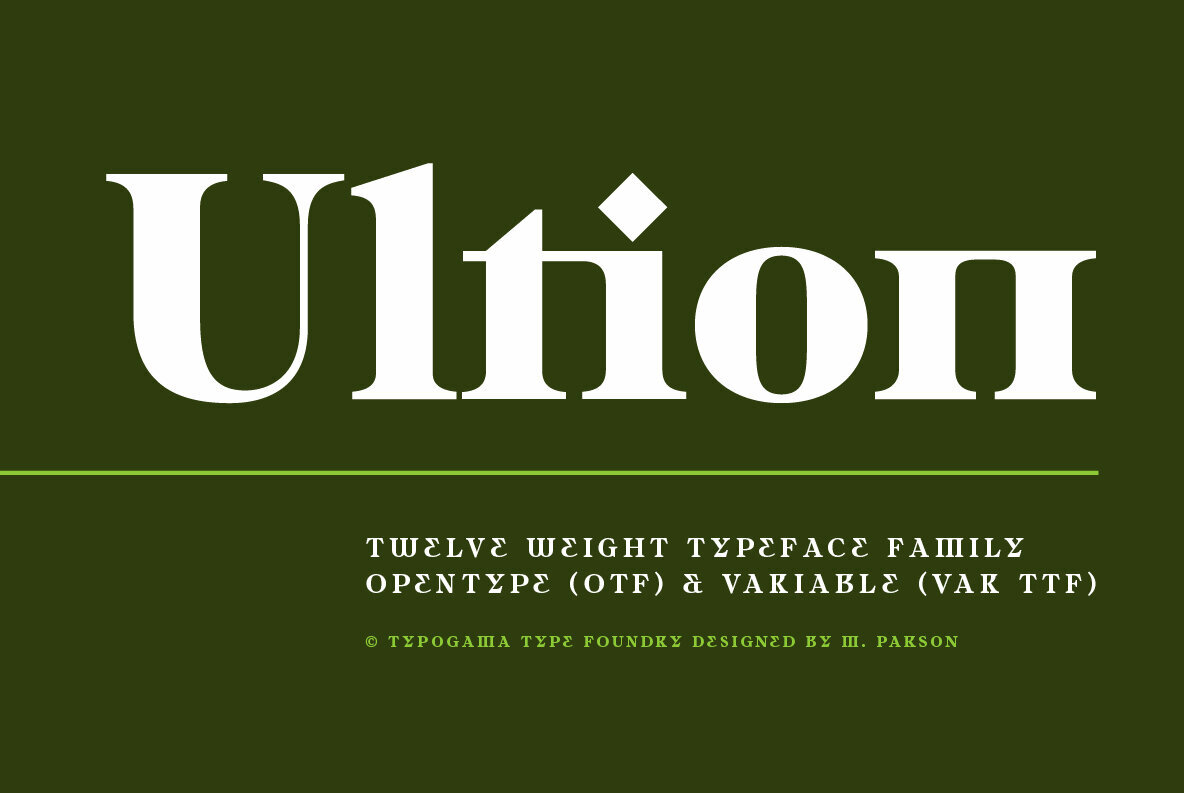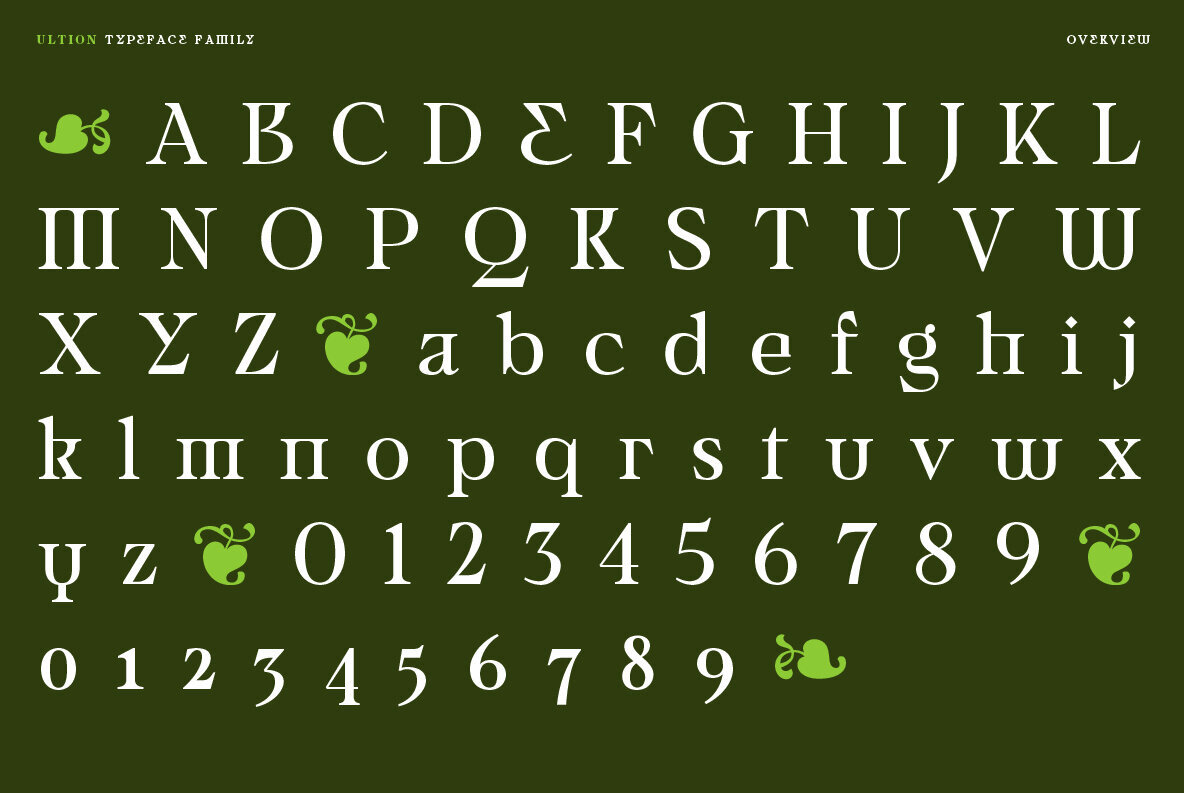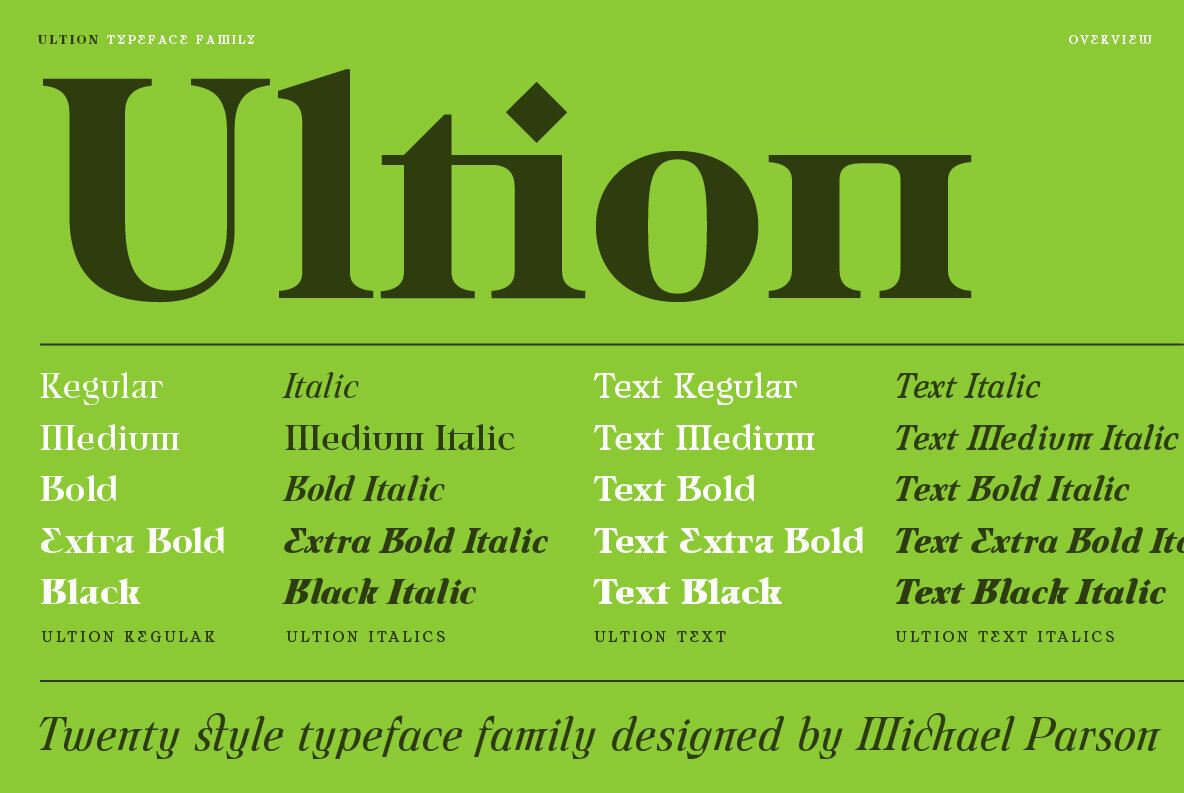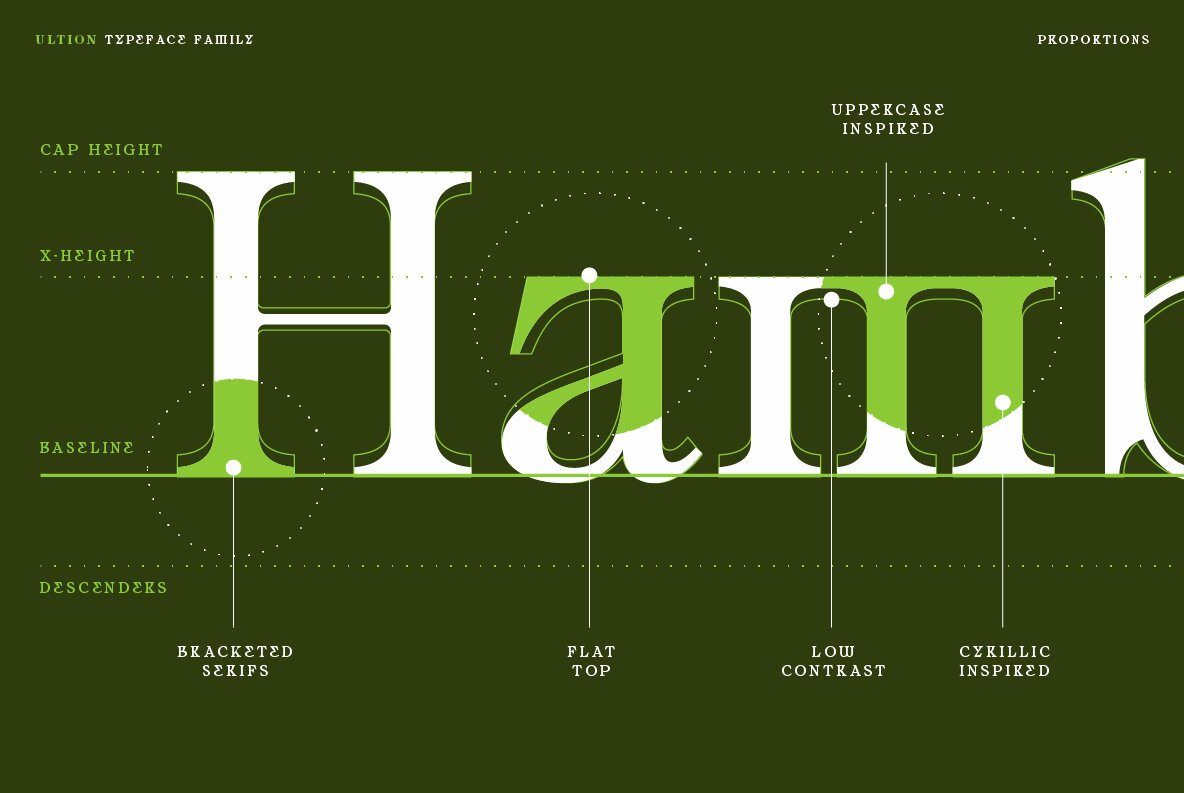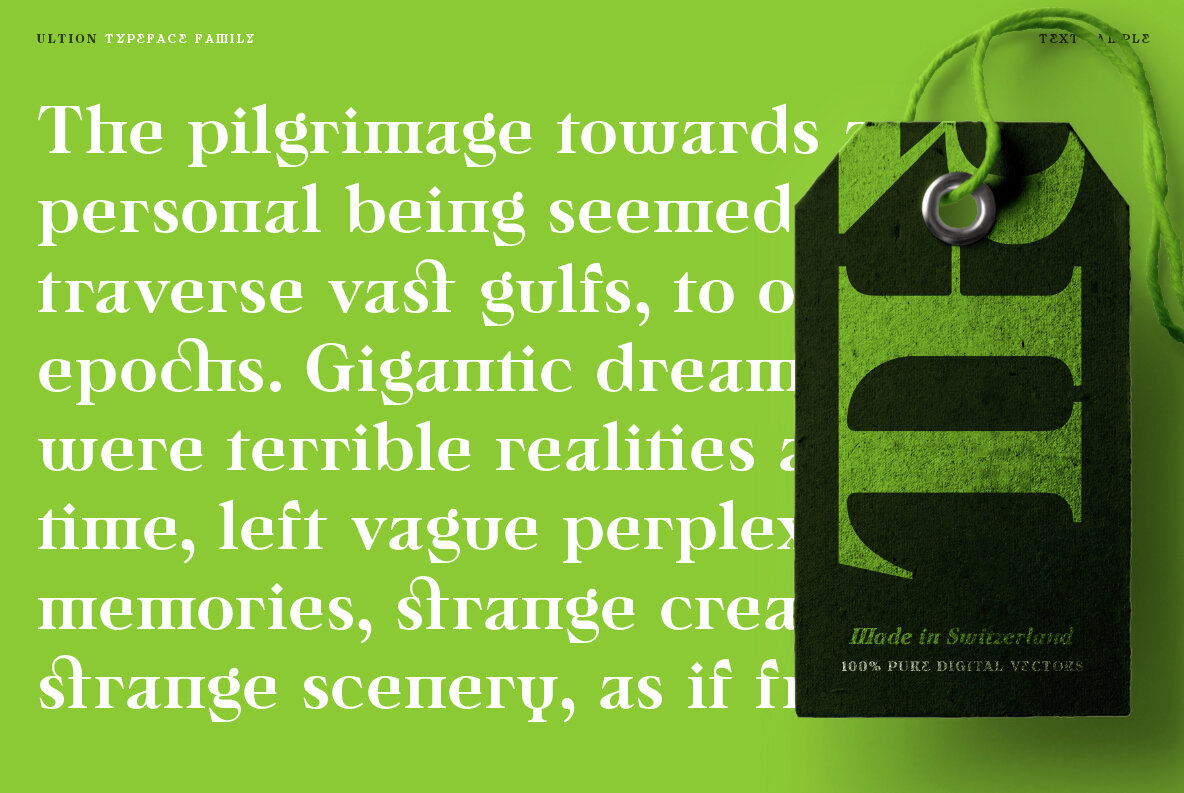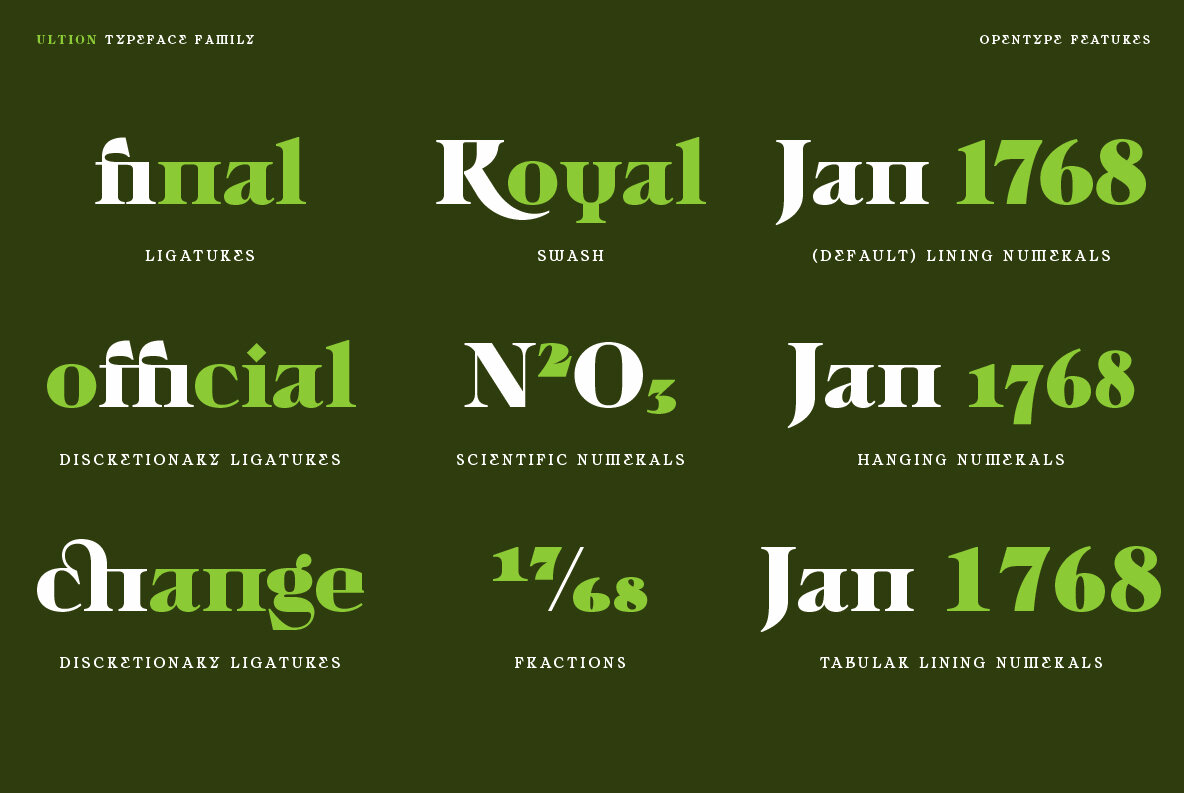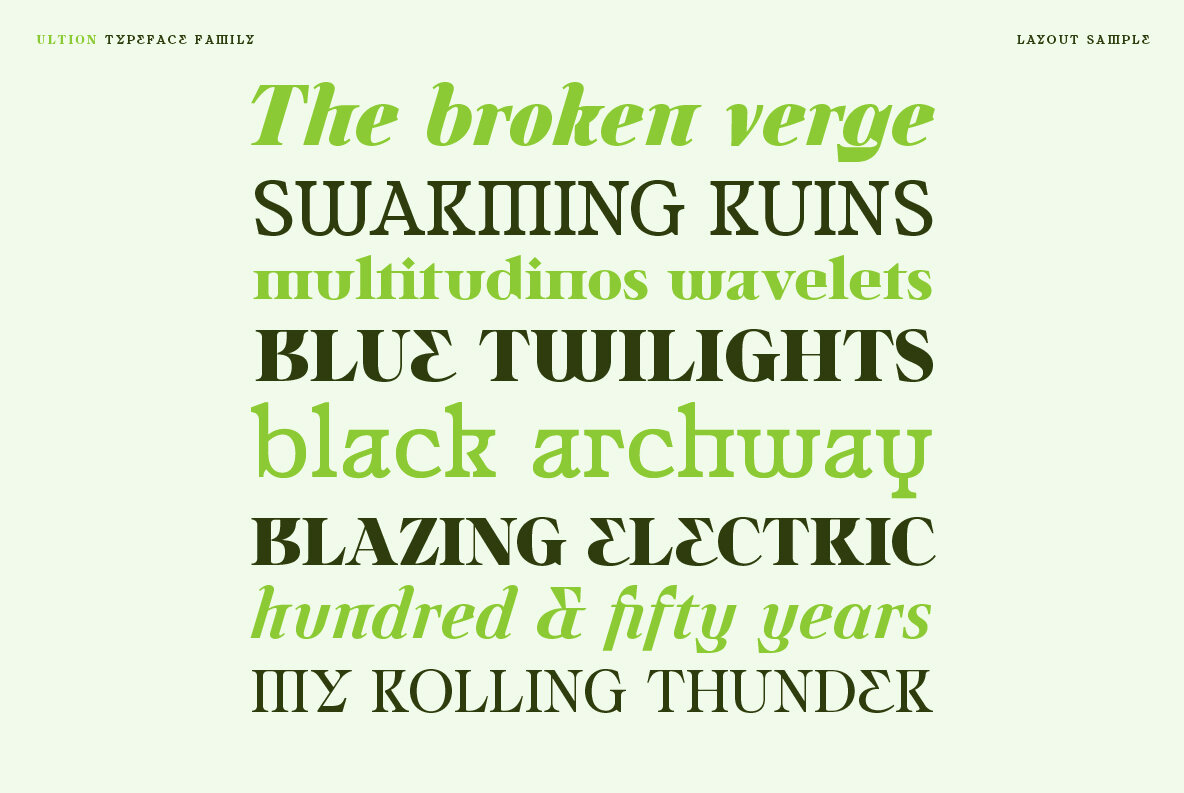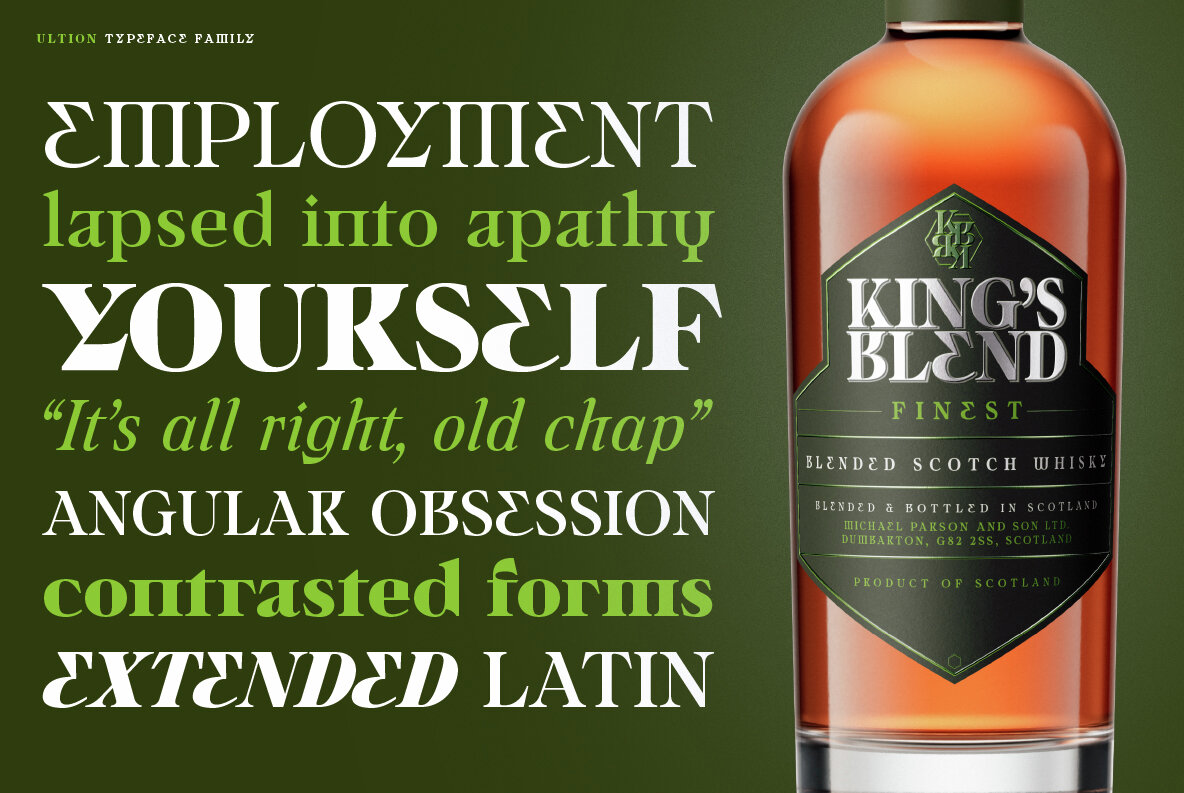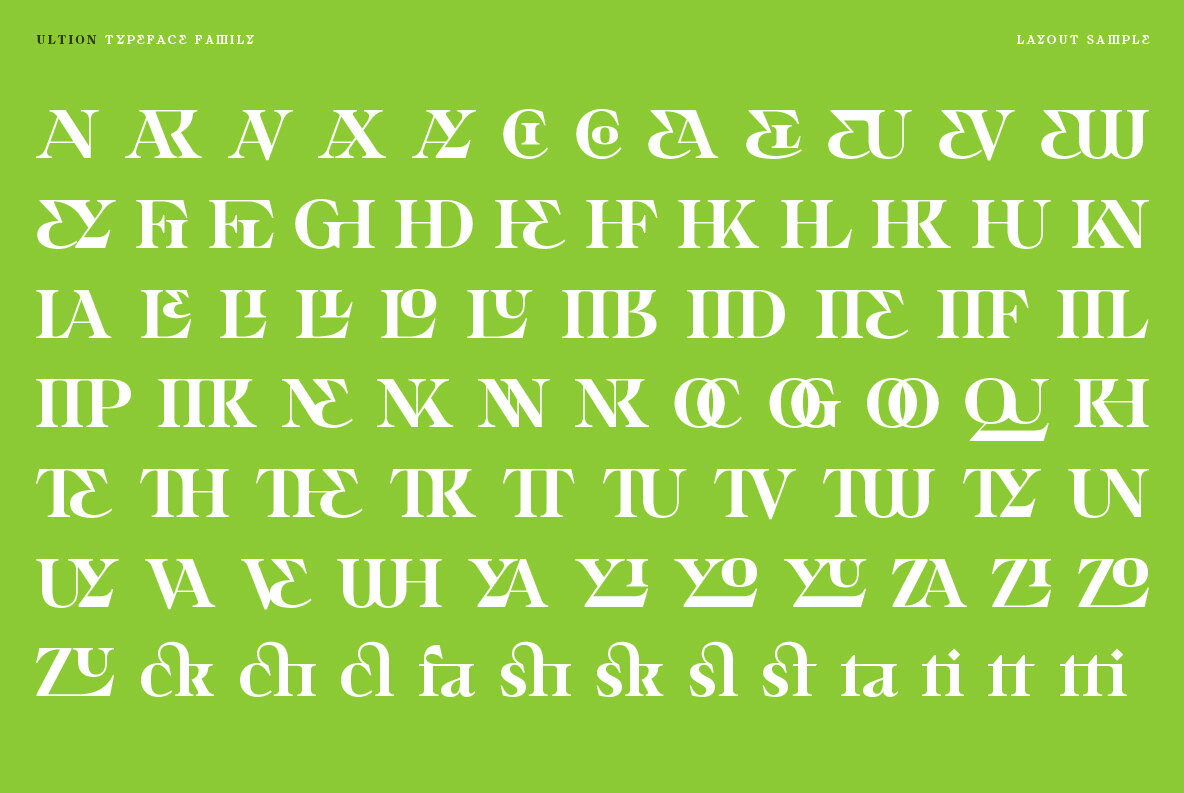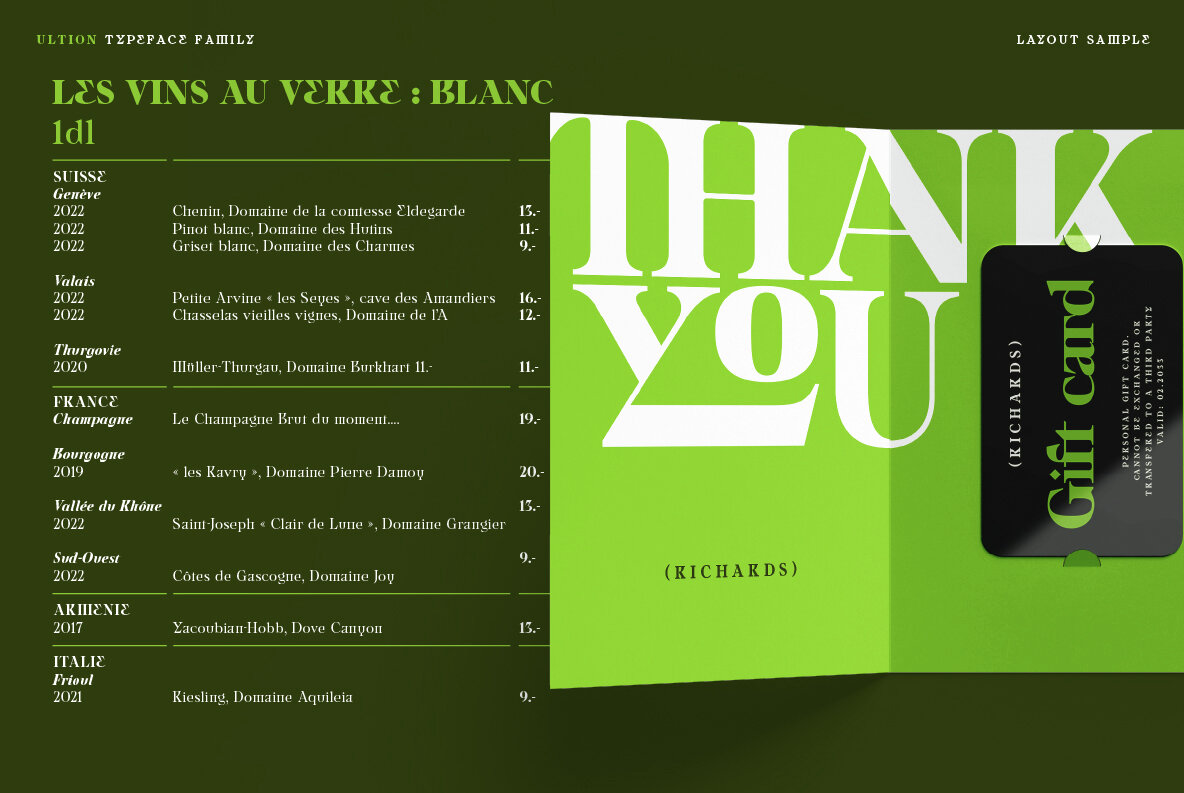
Ultion Font
Ultion offers a distinctive approach to traditional serif typefaces, drawing from 17th-century transitional styles while incorporating subtle forms inspired by the Cyrillic alphabet. This design infuses horizontal tension, adding a unique character that stands out across editorial and branding applications. The typeface remains strong, highly legible, and versatile—suitable for detail-rich headlines as well as extended text passages. Ultion’s design system includes a full range of weights with matching italics, allowing for flexibility across diverse typographic needs. For projects demanding consistent readability, a dedicated set of Text weights features balanced strokes and reduced contrast. This supports clear communication even at smaller sizes without sacrificing style. Advanced typographic features enable seamless integration into complex layouts, while the extended Latin character set provides broad multilingual support.Ultion Serif Typeface: Bridging Tradition and Innovation